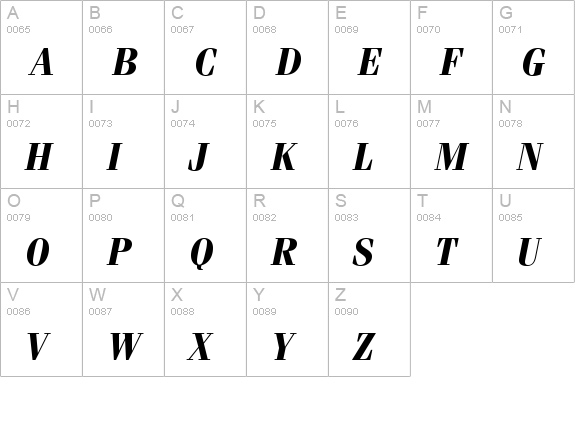
FeniceEF-BoldItalic is a stunning and elegant typeface that exudes sophistication and style. Its bold and italic design adds a touch of modern flair to any project, making it perfect for headlines, titles, and other attention-grabbing text. The graceful curves and strong lines of FeniceEF-BoldItalic create a sense of dynamism and energy, making it a versatile choice for both print and digital designs. What sets FeniceEF-BoldItalic apart is not just its visual appeal, but also its accessibility. This font is available for free download at FontsMarket.com, allowing designers and creatives to easily incorporate it into their work without any cost. Whether you're working on a branding project, a poster design, or a website layout, FeniceEF-BoldItalic is sure to make a statement and elevate your typography game. Download it today and unleash the full potential of this exquisite typeface.